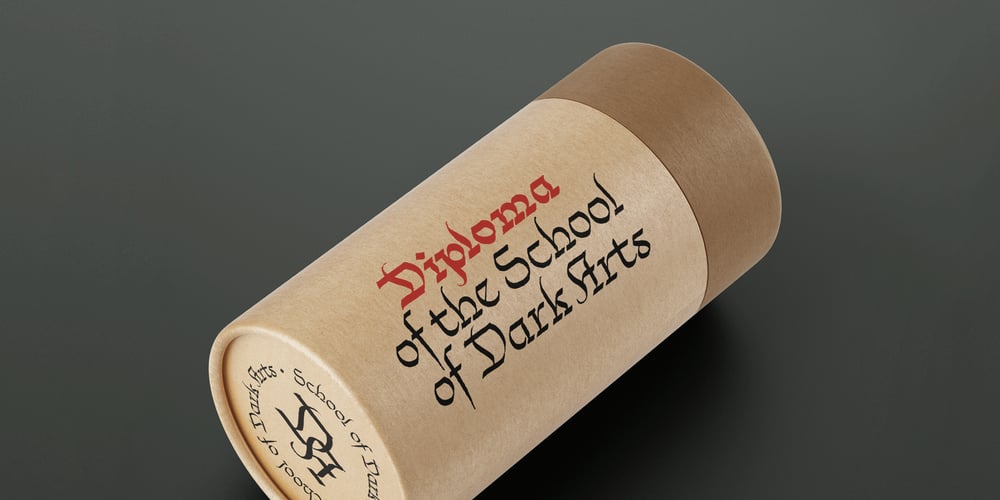
Fulgora Font Family was designed by Gabriel Martínez Meave and published by Sudtipos. Fulgora contains 2 styles and family package options. Fulgora is a sort of ‘calligraphic typography’ or ‘typographic calligraphy’, depending on the point of view. Inspired by late-medieval Bâtarde and Civilité blackletter styles, the Kannada and Sinhala writing systems from Southern India, Celtic uncials, and diverse vernacular Mexican scripts, Fulgora was created straight from pen on paper as a personal calligraphic style where fantasy in the chief ingredient. The idea to take it to the digital realm came later, as an extension of the creative process. To this end, originals for each character were made, directly traced with the nib with no retouching, then vectorized to be digitally assembled. Work has been done on spacing and kerning with the aim to digitally reproduce an utterly calligraphic outcome keeping the natural, imperfect, manual finish of all signs. Fulgora has two variants: Blanca (white) and Negra (black), executed with different nib widths but the same style and proportions.